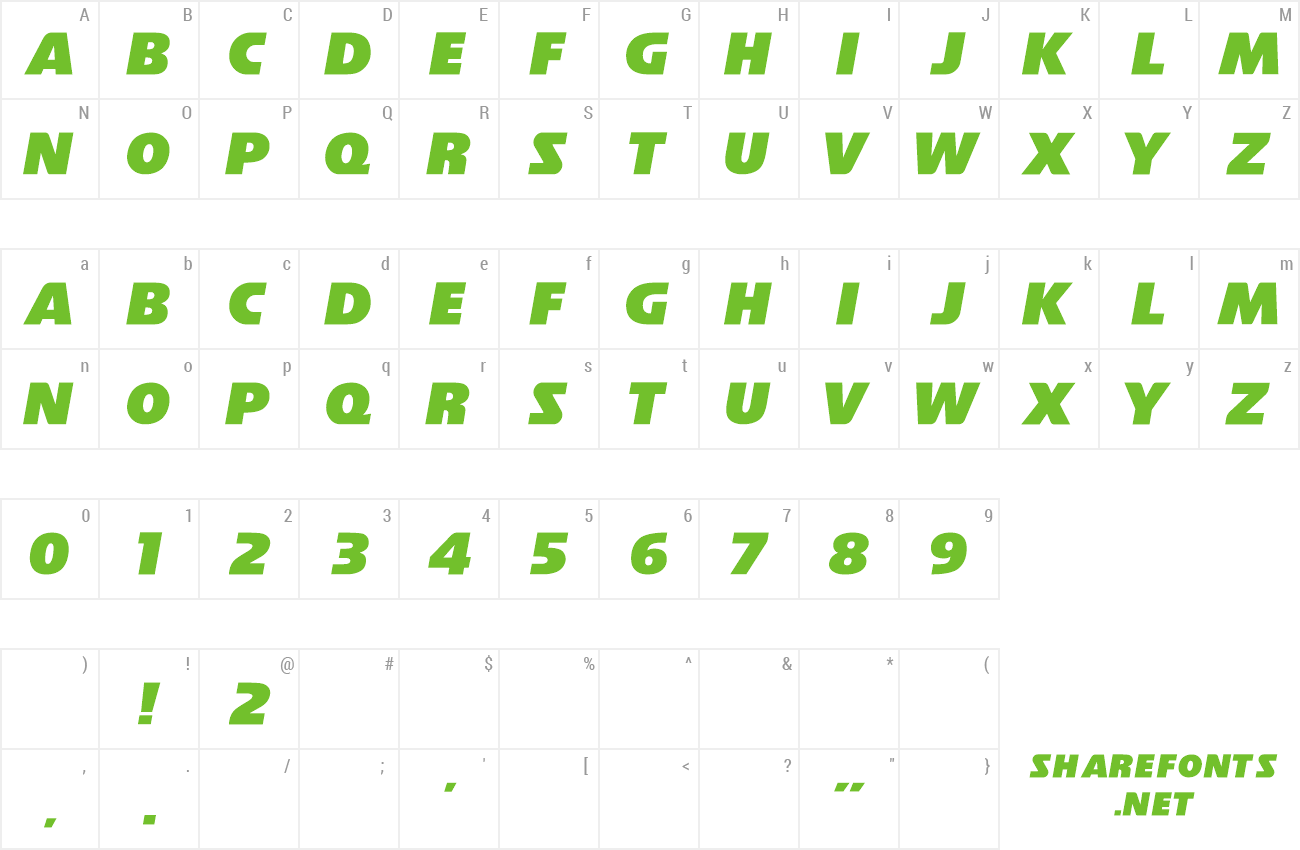
Kansas City Chiefs Font
Kansas City Chiefs Font - Web nfl chiefs by an unknown designer is a font based on the kansas city chiefs logo. By dafont october 13, 2021. Every font is free to download! It is a free font. Web kansas city chiefs logo font. Click to find the best 19 free fonts in the nfl style. Web kansas city chiefs font, help me please, tanks. Web looking for nfl fonts? Unlimited access to 146,592 fonts. Download kansas city chiefs logo font free now.
Every font is free to download! Web looking for nfl fonts? The kansas city chiefs are a professional american football team. Web kansas city chiefs font, help me please, tanks. Unlimited access to 146,592 fonts. Click to find the best 19 free fonts in the nfl style. Web nfl chiefs by an unknown designer is a font based on the kansas city chiefs logo. Feb 15, 2015 at 09:47. It is a free font. By dafont october 13, 2021.
Click to find the best 19 free fonts in the nfl style. Web kansas city chiefs logo font. Feb 15, 2015 at 09:47. The kansas city chiefs are a professional american football team. Download kansas city chiefs logo font free now. By dafont october 13, 2021. Web kansas city chiefs font, help me please, tanks. Web looking for nfl fonts? Every font is free to download! Web nfl chiefs by an unknown designer is a font based on the kansas city chiefs logo.
Web nfl chiefs by an unknown designer is a font based on the kansas city chiefs logo. Web kansas city chiefs font, help me please, tanks. The kansas city chiefs are a professional american football team. Web kansas city chiefs logo font. Every font is free to download!
Lettering Kansas City Chiefs Font
Web nfl chiefs by an unknown designer is a font based on the kansas city chiefs logo. By dafont october 13, 2021. Every font is free to download! Download kansas city chiefs logo font free now. Unlimited access to 146,592 fonts.
It is a free font. Web nfl chiefs by an unknown designer is a font based on the kansas city chiefs logo. Feb 15, 2015 at 09:47. Web kansas city chiefs logo font. Every font is free to download!
Web kansas city chiefs font, help me please, tanks. Unlimited access to 146,592 fonts. Feb 15, 2015 at 09:47. Web kansas city chiefs logo font. Every font is free to download!
Unlimited access to 146,592 fonts. It is a free font. Web kansas city chiefs font, help me please, tanks. Web looking for nfl fonts? The kansas city chiefs are a professional american football team.
Download kansas city chiefs logo font free now. Click to find the best 19 free fonts in the nfl style. Web kansas city chiefs font, help me please, tanks. It is a free font. Web nfl chiefs by an unknown designer is a font based on the kansas city chiefs logo.
Click to find the best 19 free fonts in the nfl style. Web kansas city chiefs font, help me please, tanks. Every font is free to download! It is a free font. By dafont october 13, 2021.
The kansas city chiefs are a professional american football team. Web looking for nfl fonts? Web kansas city chiefs logo font. Every font is free to download! Web nfl chiefs by an unknown designer is a font based on the kansas city chiefs logo.
Kansas City Chiefs Custom Font Svg Files Chiefs for Print Etsy
Web kansas city chiefs font, help me please, tanks. Unlimited access to 146,592 fonts. Download kansas city chiefs logo font free now. Web kansas city chiefs logo font. Every font is free to download!
Download The LineUp By Kc Fonts Free Font
Download kansas city chiefs logo font free now. Web nfl chiefs by an unknown designer is a font based on the kansas city chiefs logo. Every font is free to download! The kansas city chiefs are a professional american football team. Click to find the best 19 free fonts in the nfl style.
Web Kansas City Chiefs Logo Font.
By dafont october 13, 2021. The kansas city chiefs are a professional american football team. Click to find the best 19 free fonts in the nfl style. Every font is free to download!
Web nfl chiefs by an unknown designer is a font based on the kansas city chiefs logo.